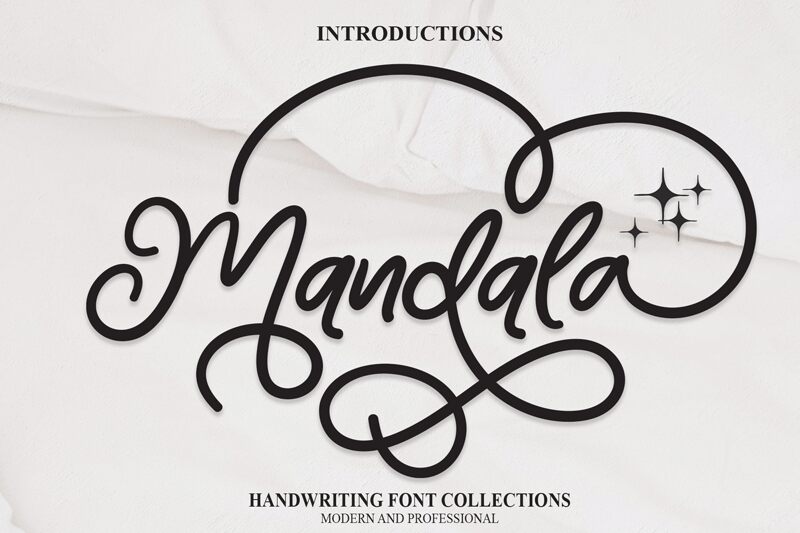
Mandala
Mandala, the latest creation by scratchones, is a stunning semi-light handwritten font that is sure to add a touch of elegance and sophistication to any project. This font is perfect for creating unique branding materials such as logos, business cards, and website headers. The cursive lettering style adds a personal touch that makes it particularly suitable for wedding invitations, greeting cards, and other formal events. With its smooth strokes and intricate details, Mandala will make any design stand out from the crowd. So why not try this beautiful semi-light typeface today and elevate your brand to a new level of excellence?
the latest style letters are perfect for wall displays, wedding invitations, social media post logos, advertisements, product packaging, product designs, labels, photography, watermarks, invitations, stationery, and any project that requires taste handwriting.